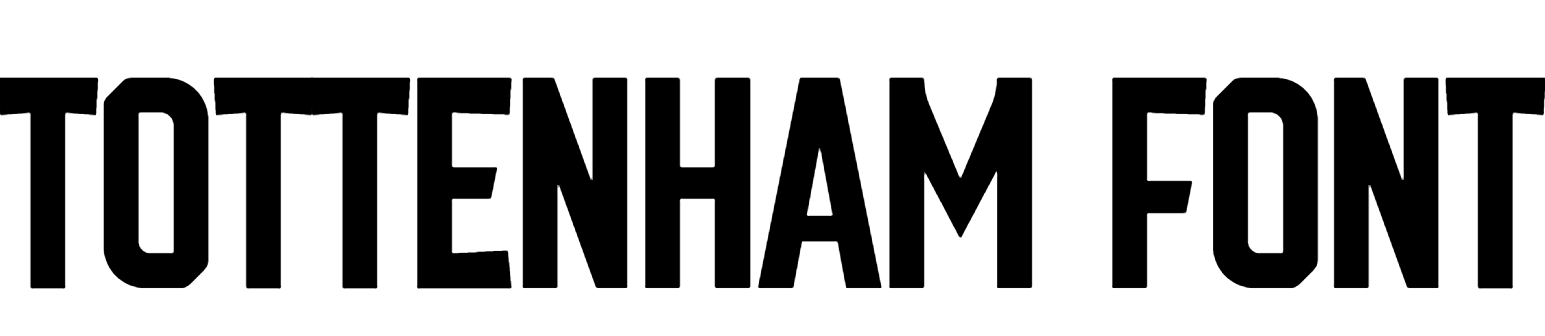
Tottenham
Tottenham is a sans serif font created by Muhammad Afif Ersya and released through Trequartista Studio. It has a clean, no-nonsense look that fits modern brands and websites. You can download it for free and test it with your own words in the preview above.
What You Can Type With Tottenham
You get every letter from A to Z in both cases and all the numbers from 0 to 9, which means Tottenham can handle full sentences, dates and prices. Everyday marks like &, !, ? and @ are there too. Thanks to its accented letters, it also works for Spanish, French, Portuguese and Italian, not just English.
Where Tottenham Works Best
Designers usually reach for fonts like Tottenham when they're making websites, app screens and clean logos. It works for headings and body text alike. If the download has several weights, use a heavier one for titles and a lighter one for paragraphs.
Does Tottenham support accented letters?
Yes. Tottenham includes the accented letters needed for Spanish, French, Portuguese and Italian, so it works for more than just English.